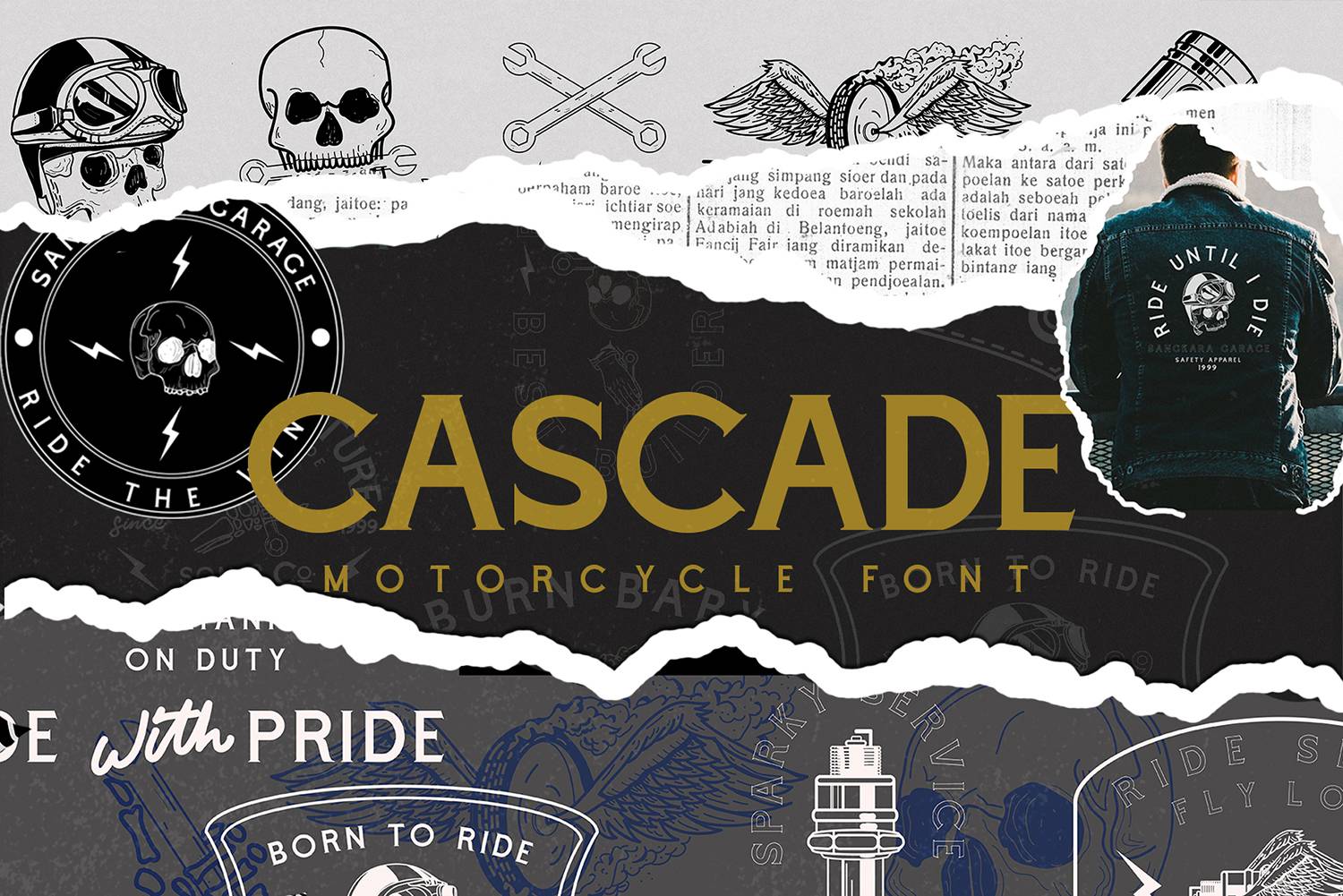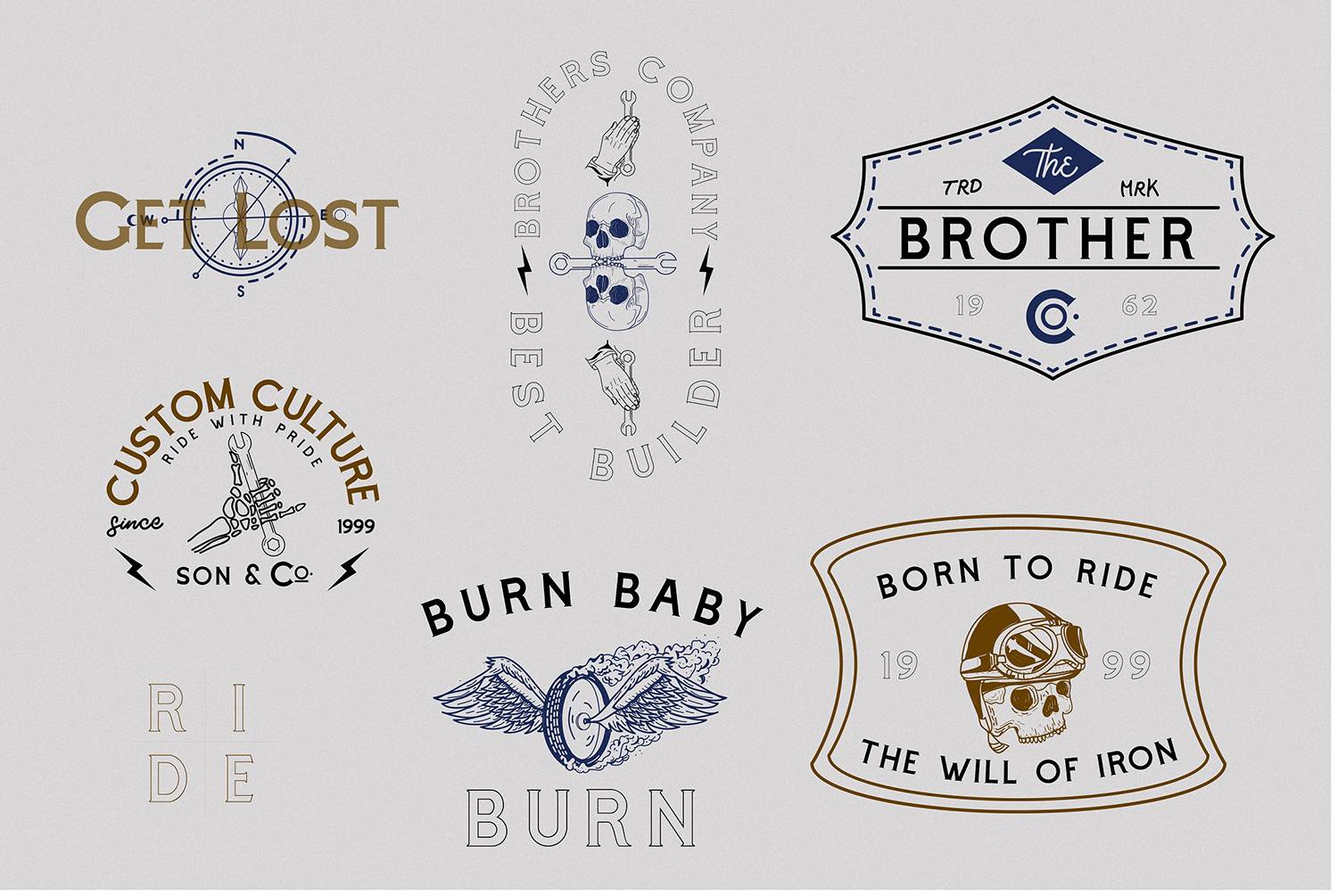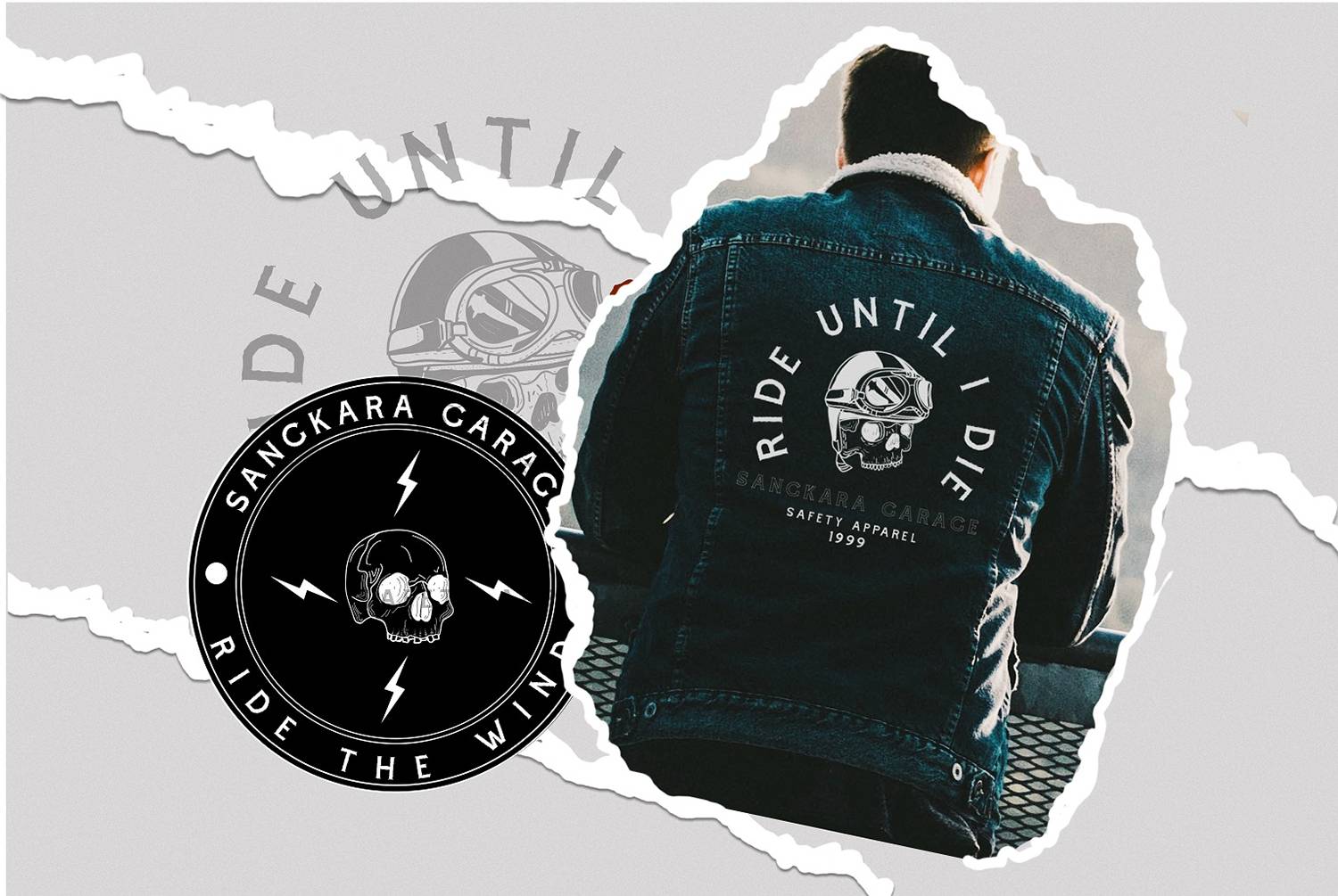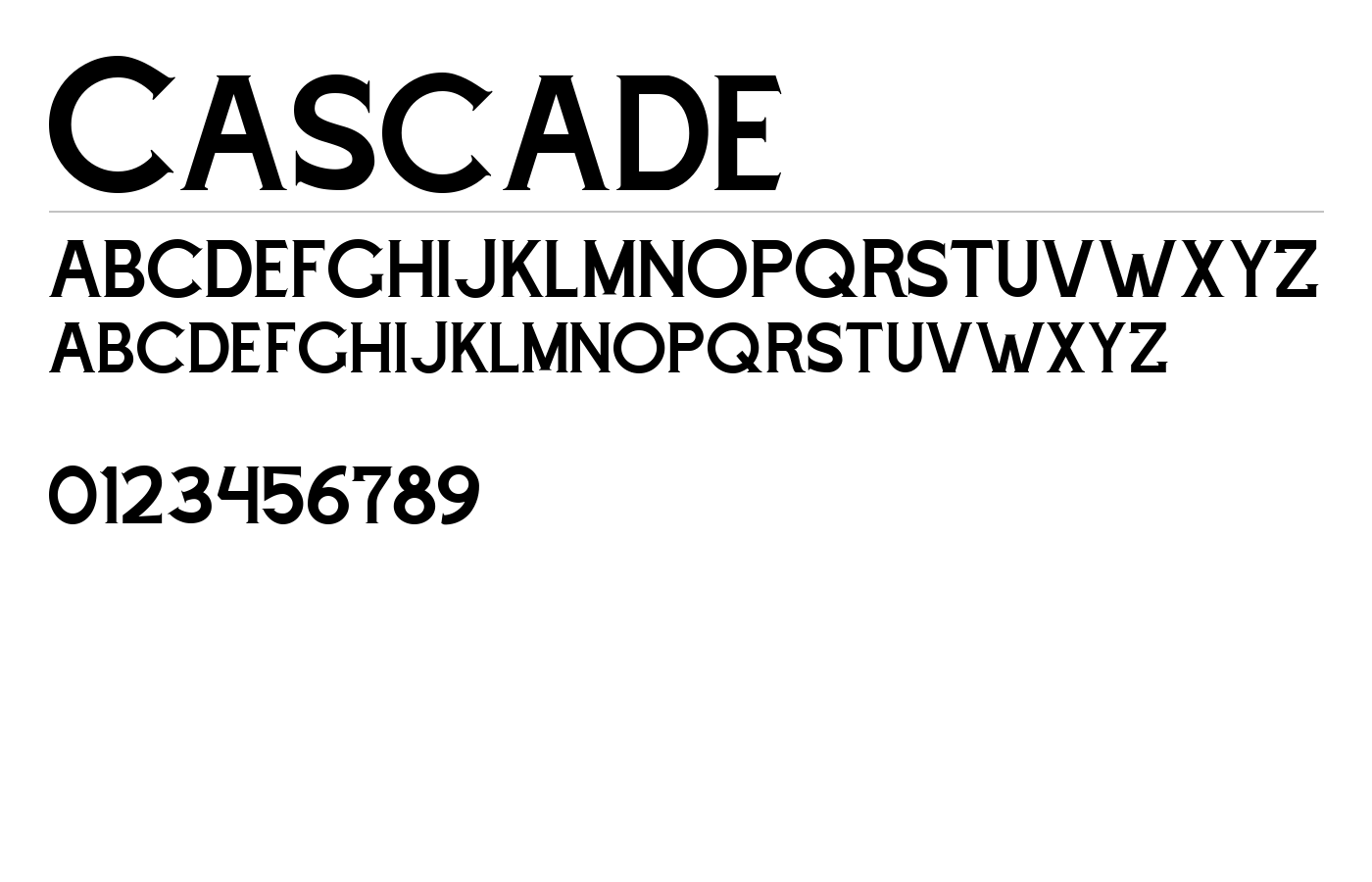
Cascade Motorcycle Font is a bold serif typeface with strong, angular strokes and a medium contrast that gives it a vintage yet dynamic personality. Its sharp serifs, distinctive letter shapes, and solid presence make it ideal for branding, logos, and headlines that want to evoke strength, speed, and a classic motorcycling spirit. This font works best in designs that need a bold, memorable look with a touch of retro elegance.
Cascade Motorcycle Font
About Cascade Motorcycle Font